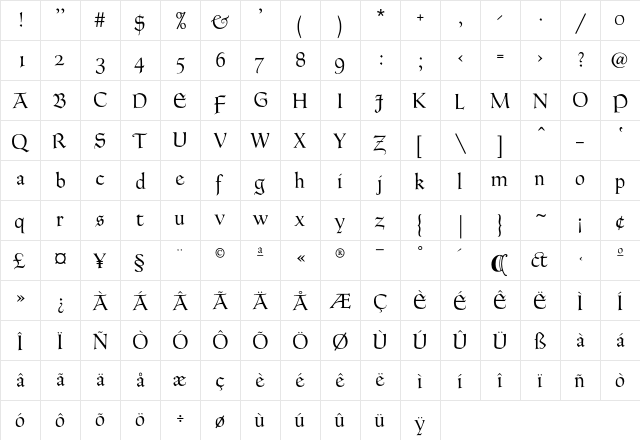
GoudyThirtyHW Regular
Design Context for GoudyThirtyHW Typeface
GoudyThirtyHW is a composed and adaptable typeface that performs quietly and consistently across a wide range of design contexts.